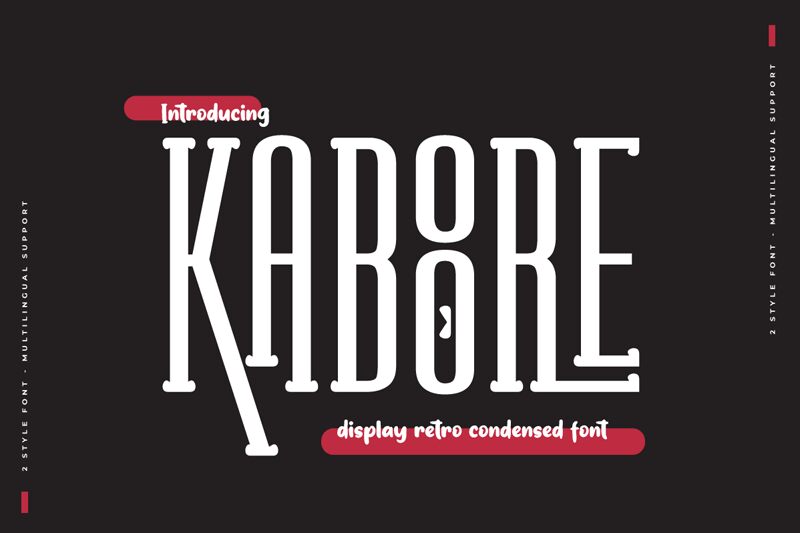
KABOORE Slab
Kaboore Slab by Twinletter is a standout member of the Kaboore font family, embodying a unique visual appeal with its distinct sans serif style. The font features tall, narrow characters with strong vertical lines, creating an imposing yet elegant presence that captures attention effortlessly. The bold and sturdy structure of the letters ensures excellent readability while maintaining a striking aesthetic.
Ideal for headlines, logos, and branding materials, Kaboore Slab's commanding look can provide emphasis and distinction in any design context. Its remarkable blend of modernity and robustness makes it versatile for various applications – from editorial layouts to web design – allowing designers to achieve both clarity and visual impact with ease.